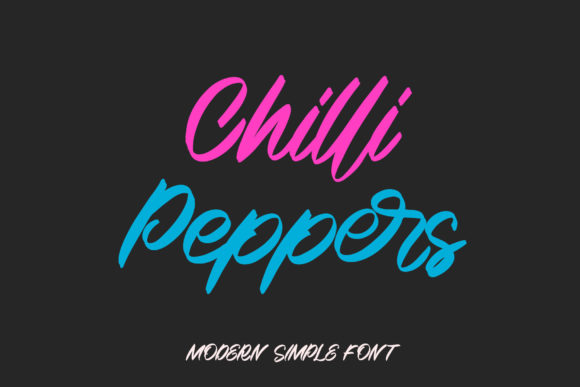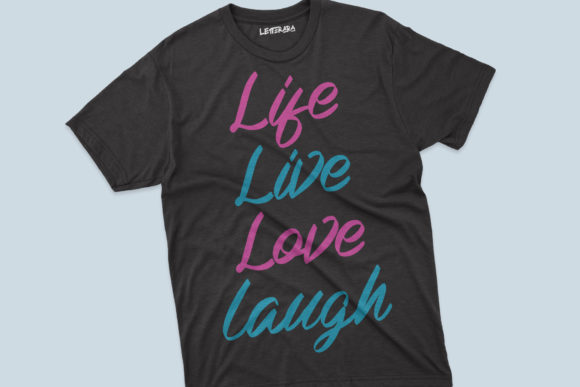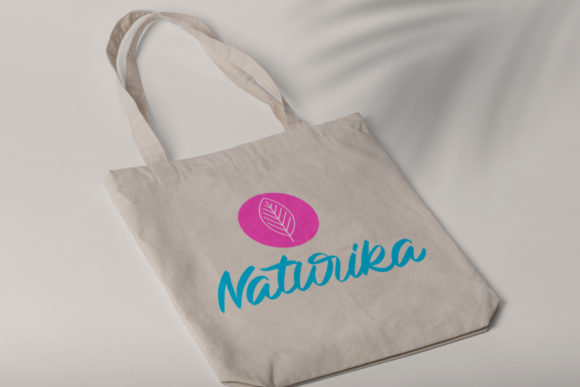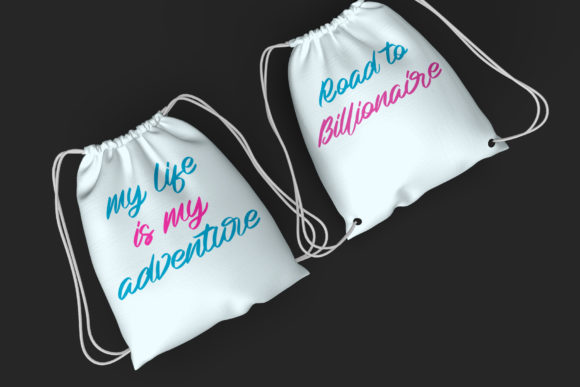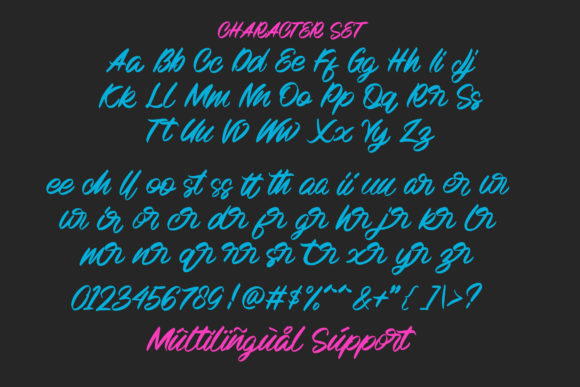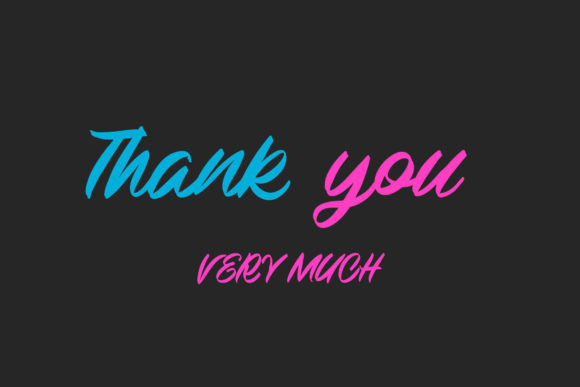
Chilli Peppers Font
About Chilli Peppers Font
Chilli Peppers is a delicate and elegant handwritten font. Its distinct and well balanced letters make this font a masterpiece. Chilli Peppers is PUA encoded which means you can access all of the glyphs and swashes with ease!